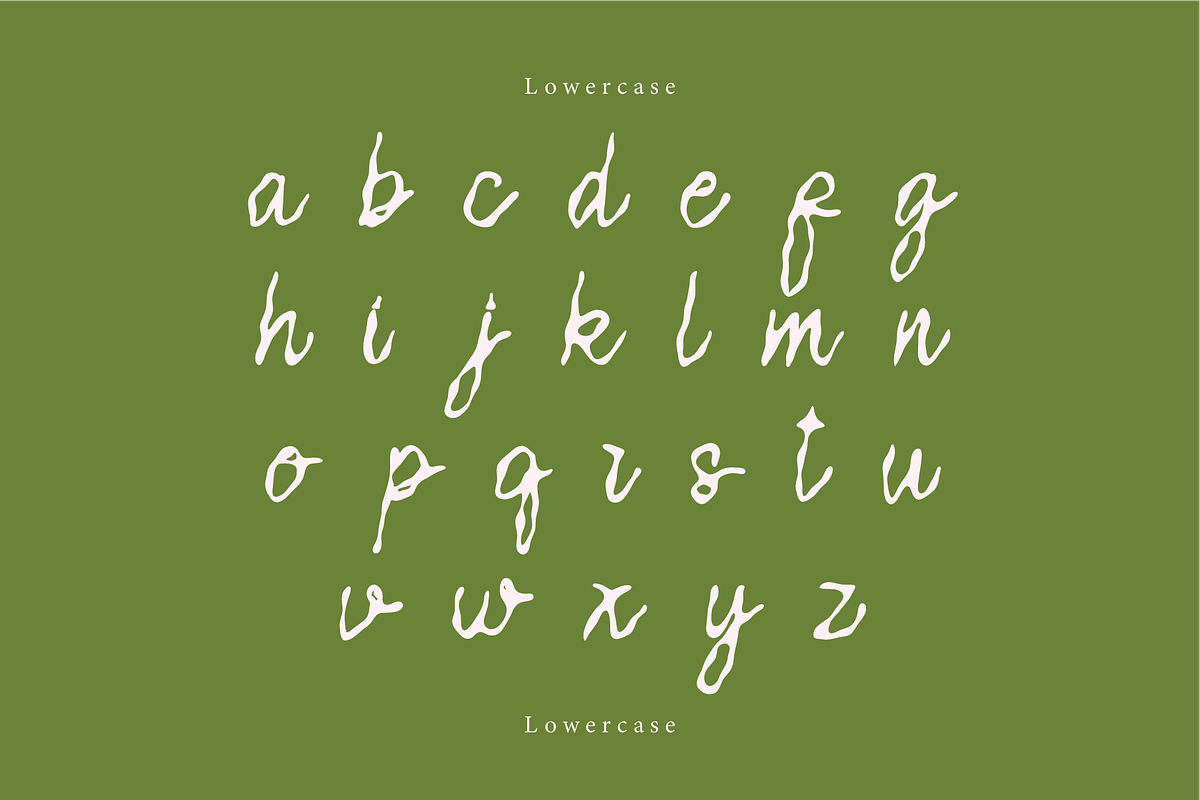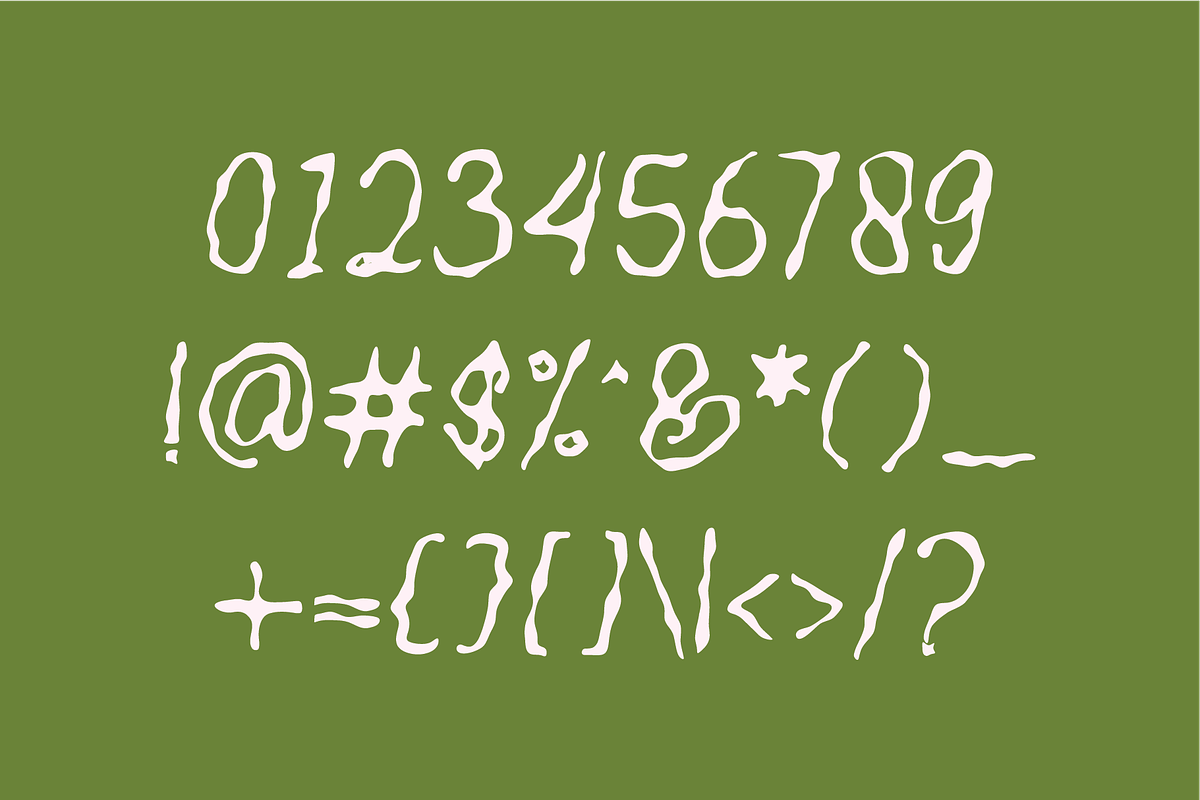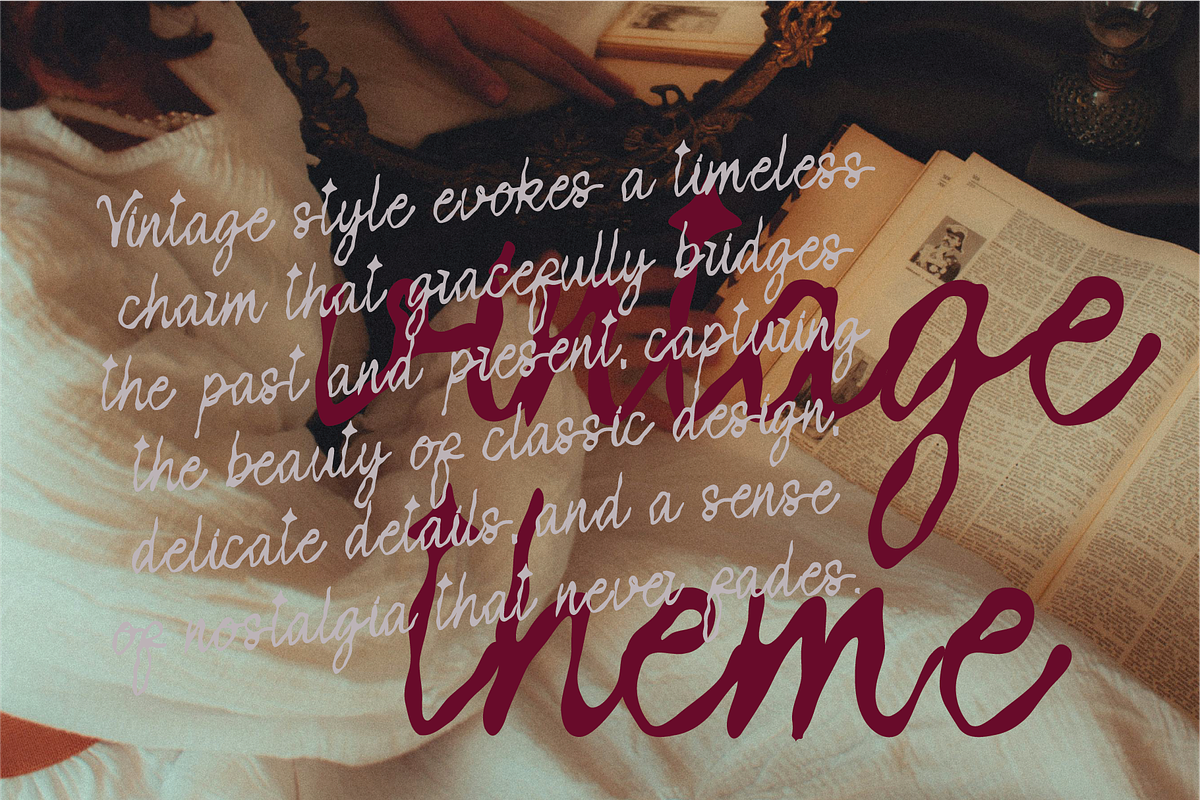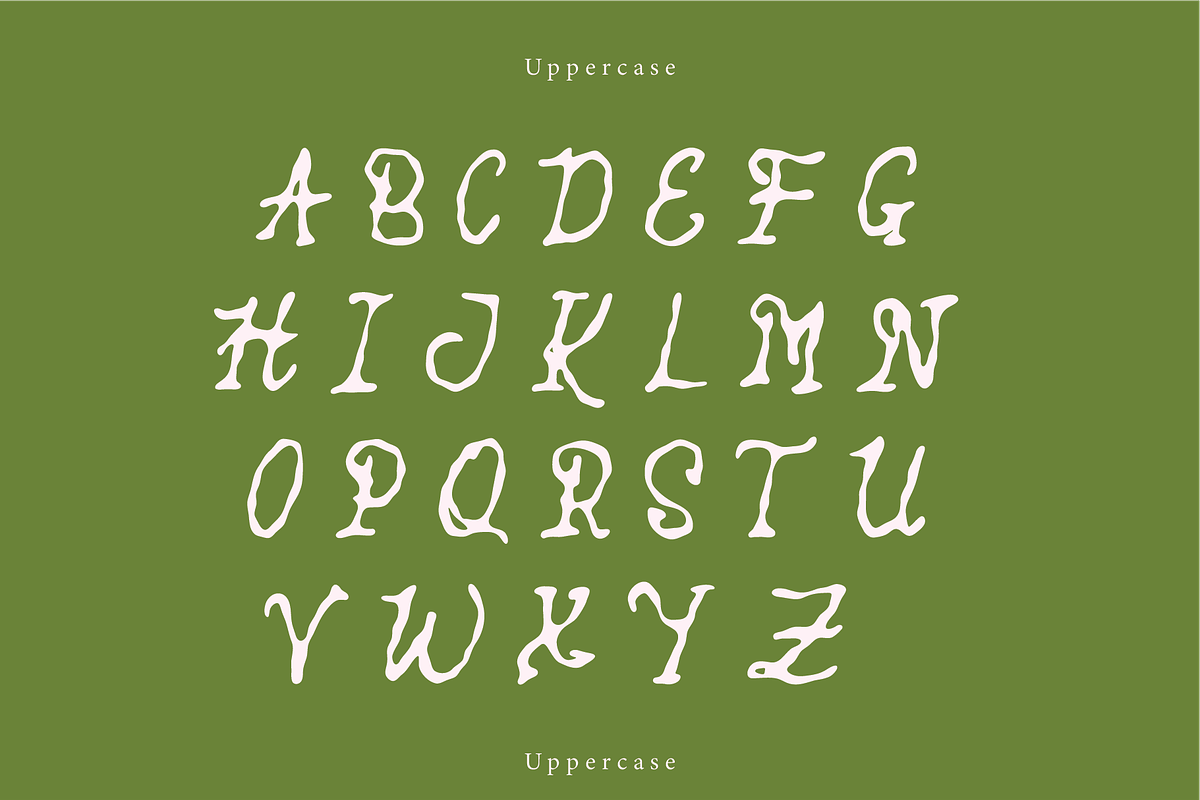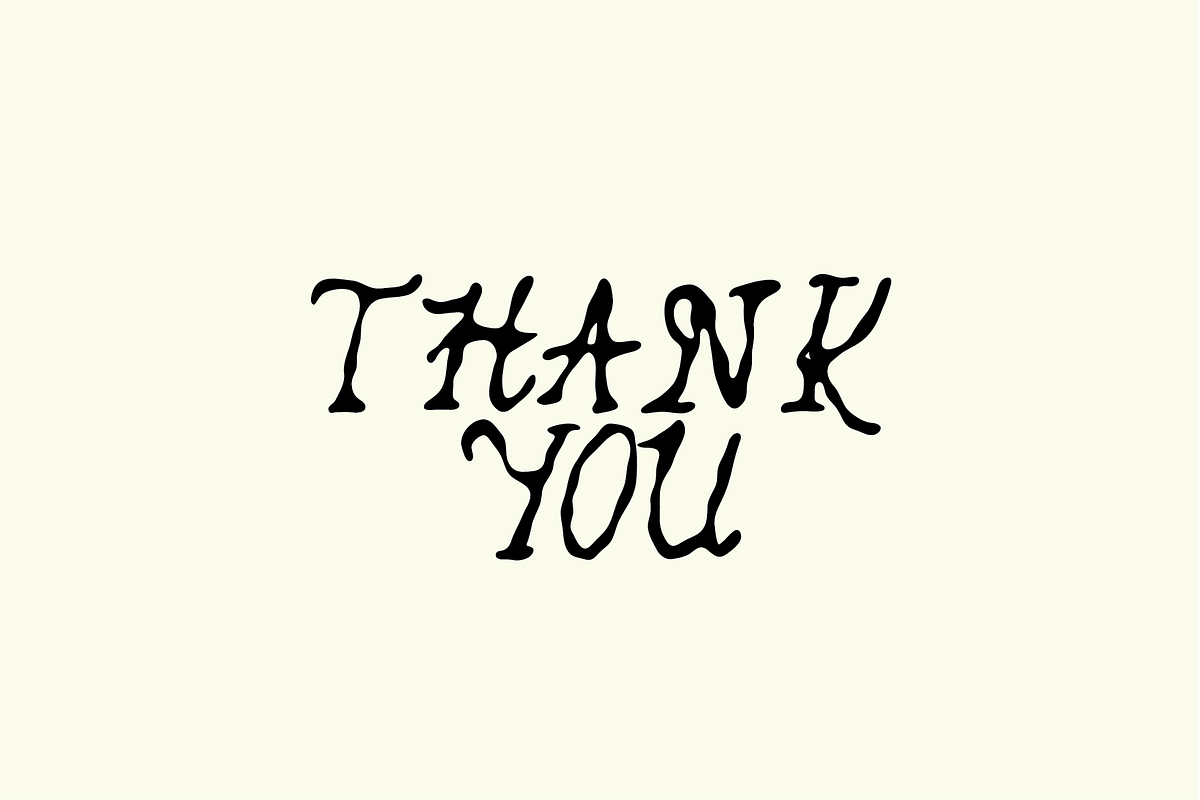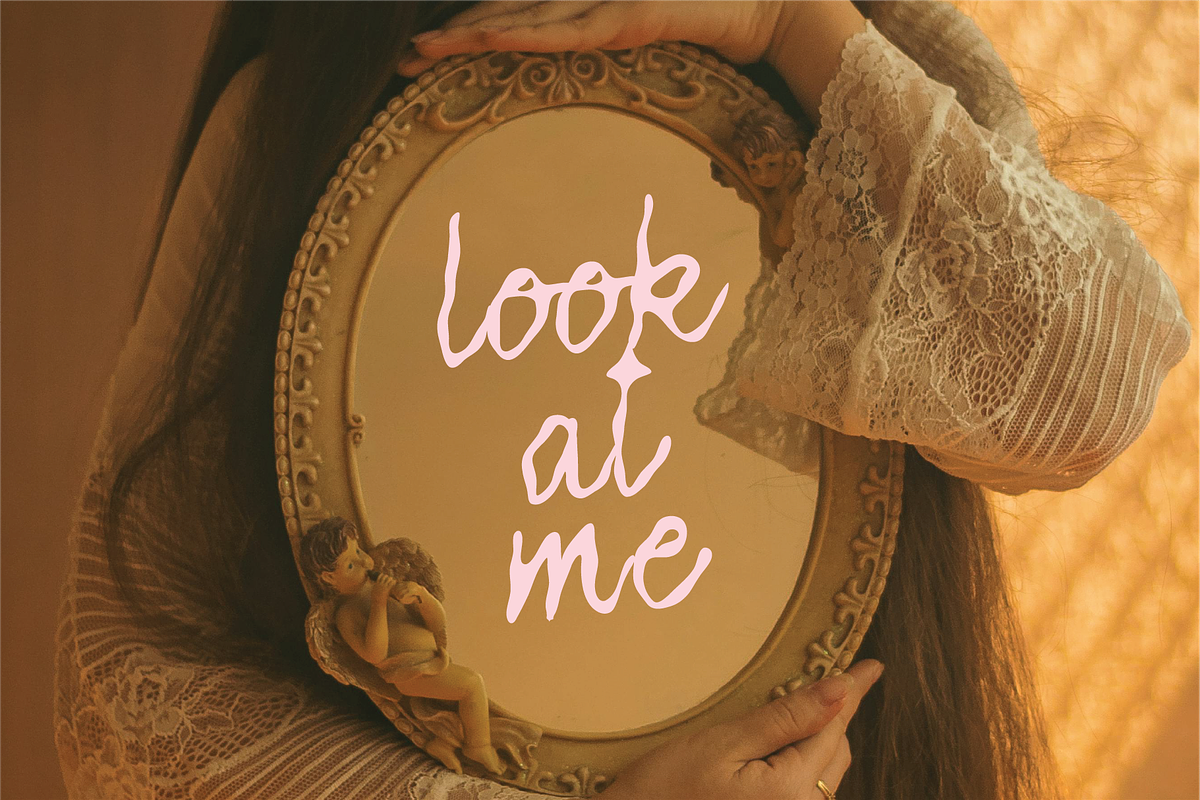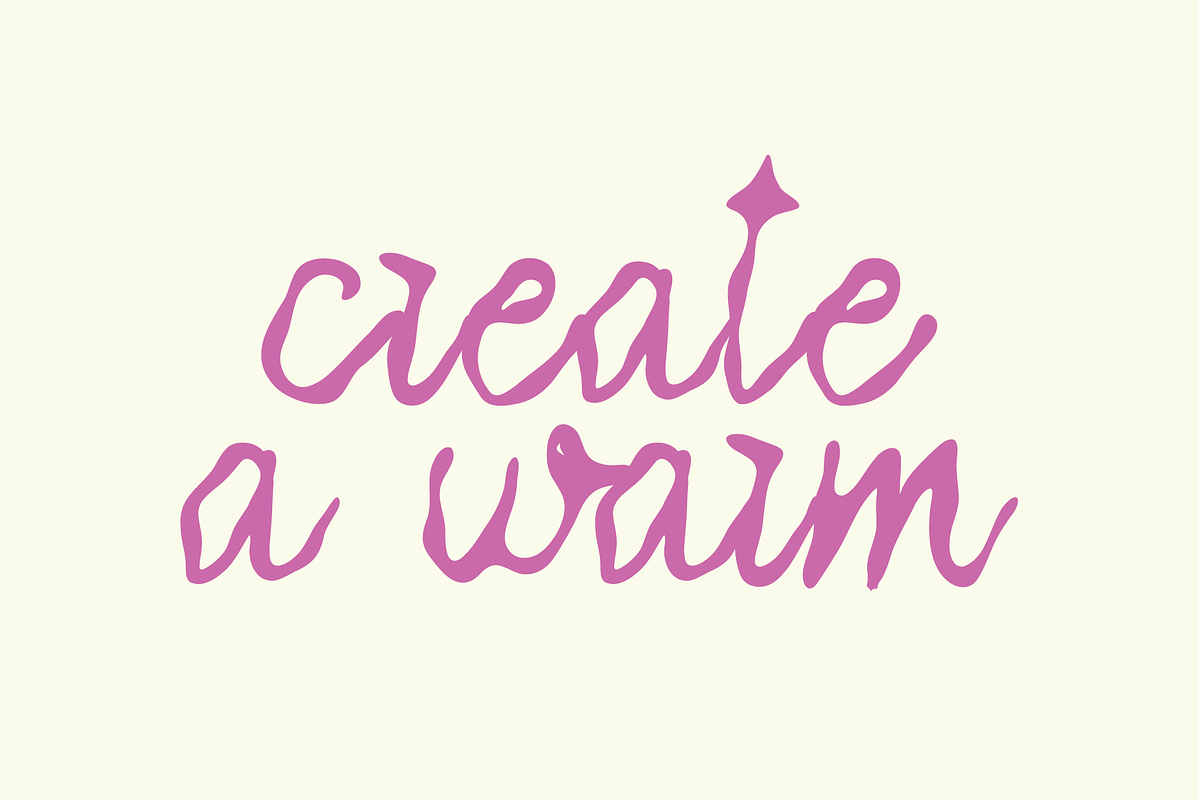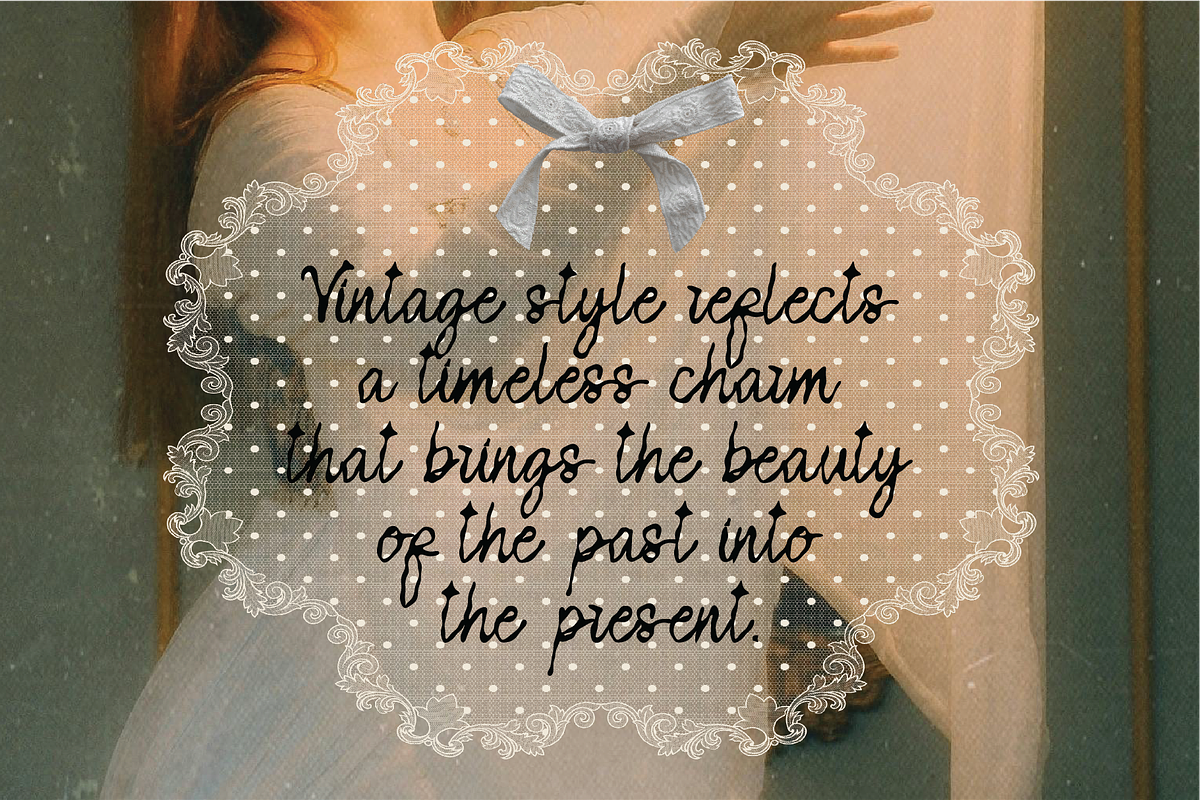
Kohaku | A Ink Script Font
Kohaku is a natural and organic ink script font with smooth, flowing strokes and earthy charm. Perfect for branding, packaging, stationery, handmade projects, or nature-inspired designs, Kohaku brings warmth, elegance, and personality to your creations.
Numbers, marks and symbols